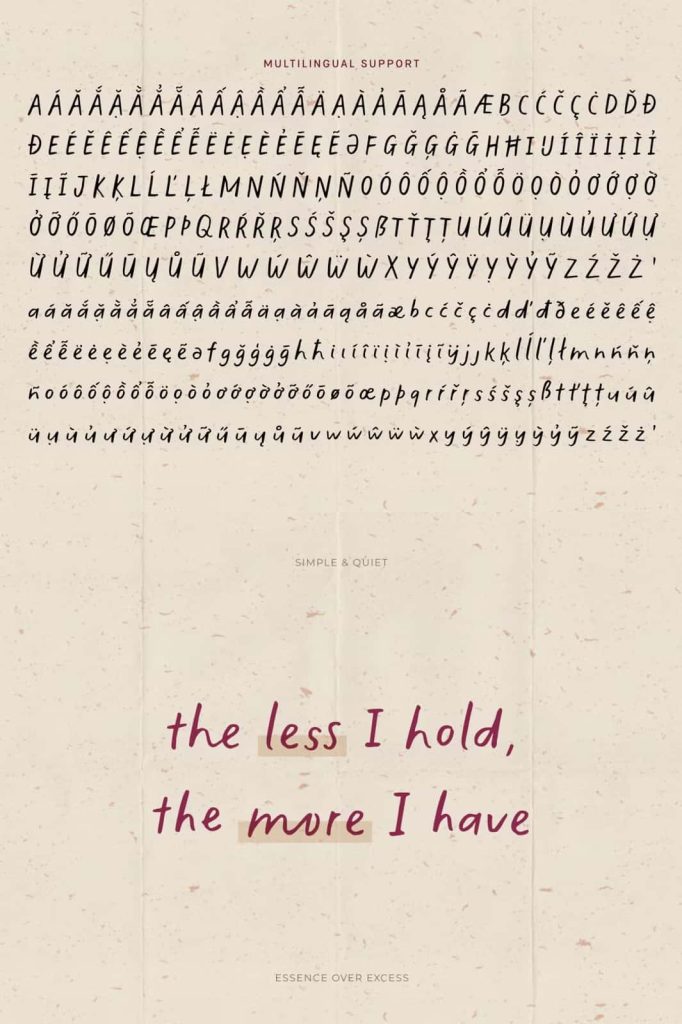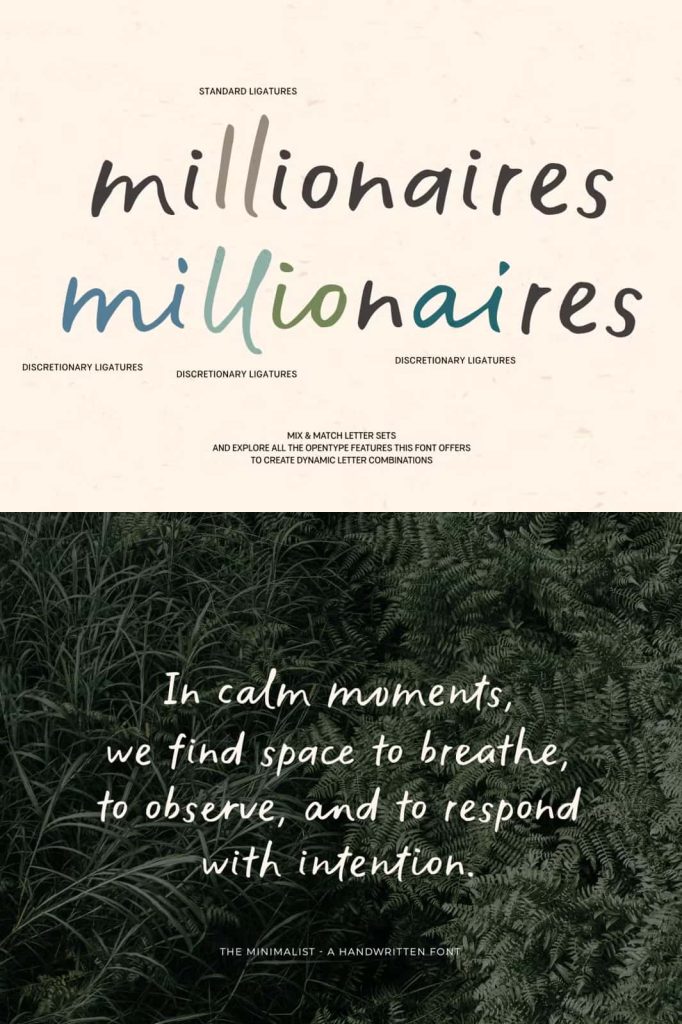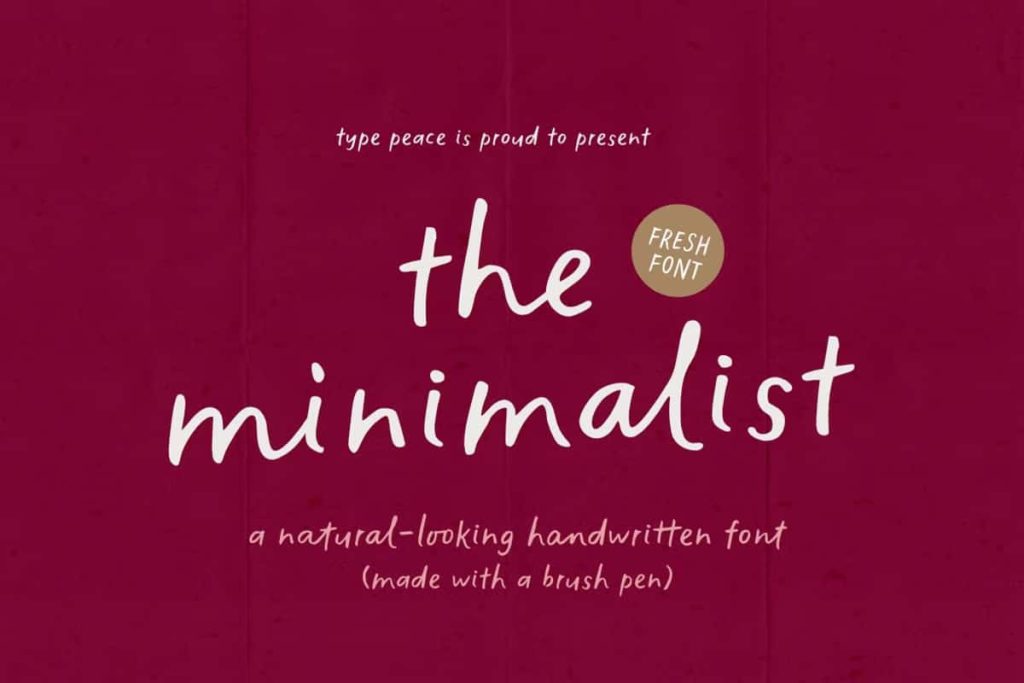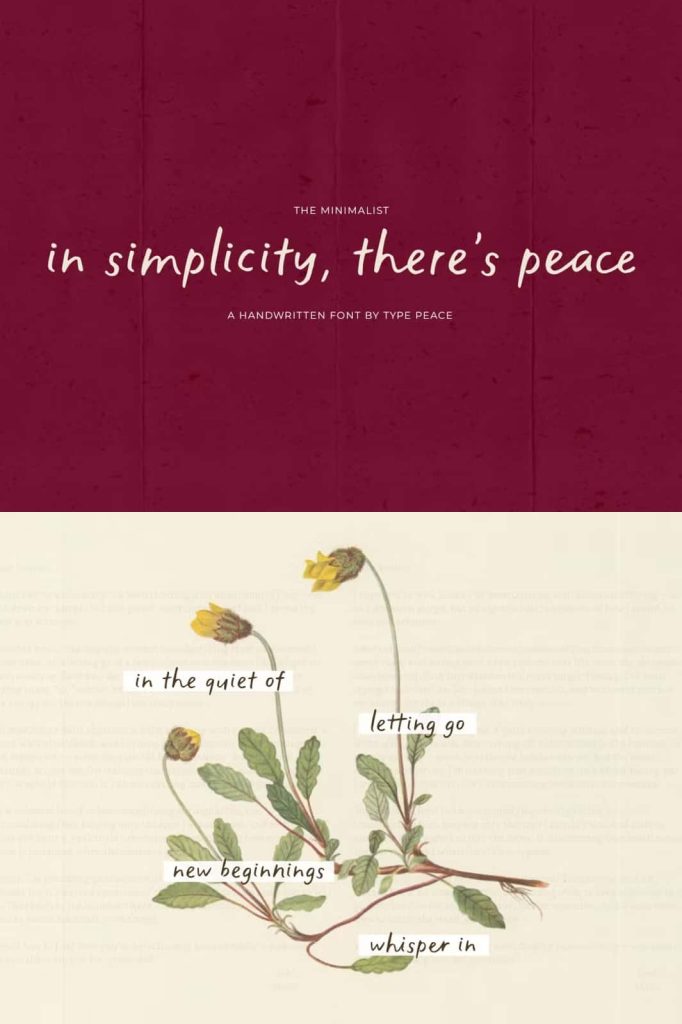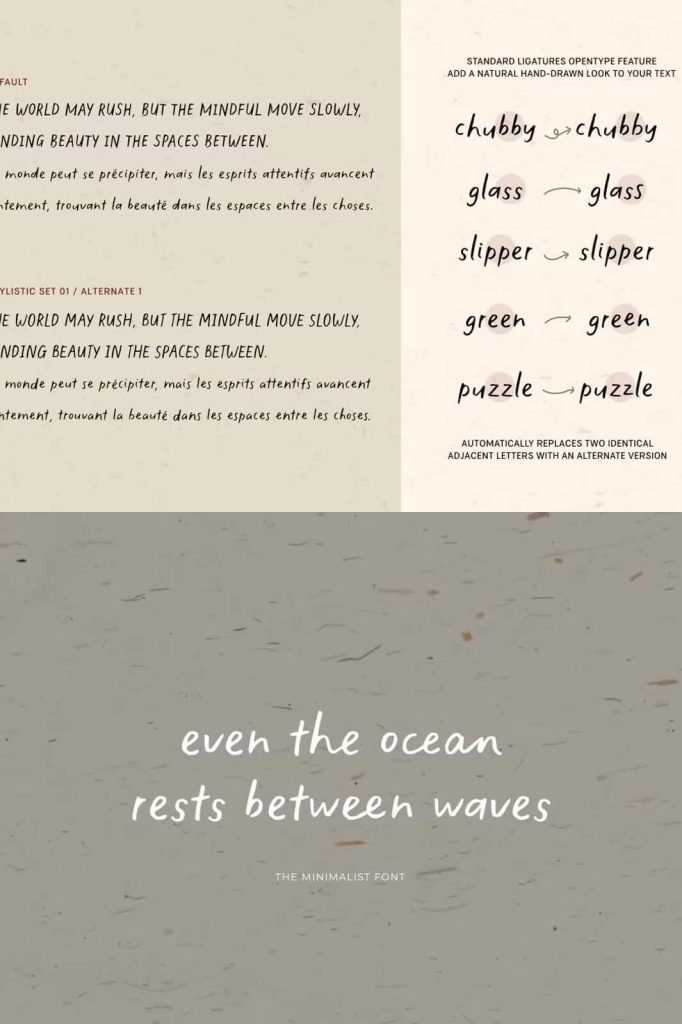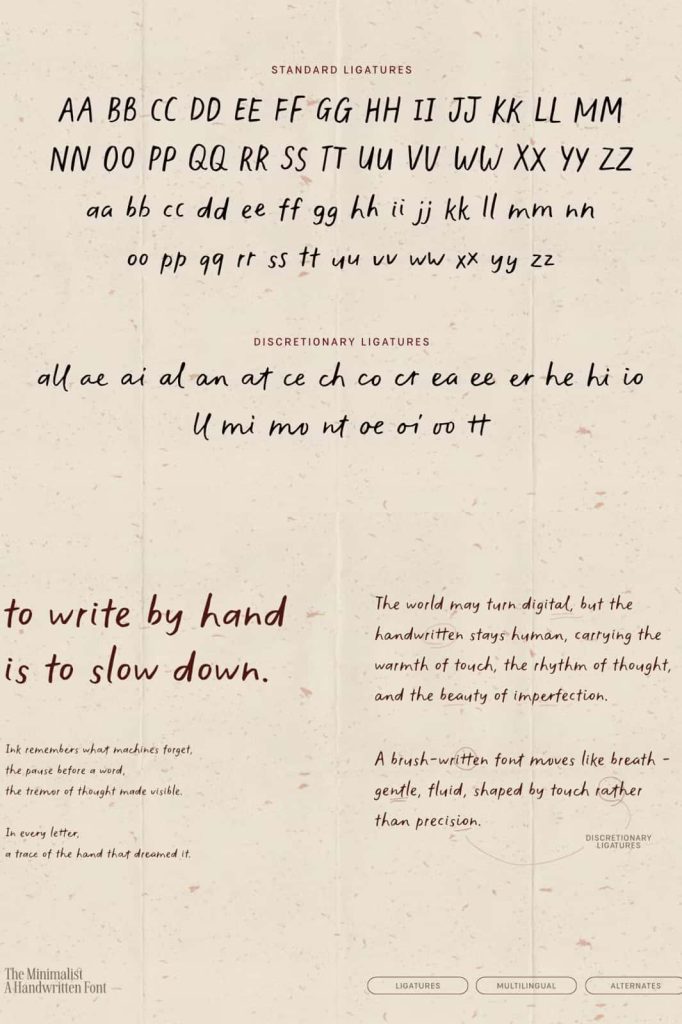
The Minimalist Handwritten Font – Natural Brush Script with Authentic Hand-Lettered Style
The Minimalist Handwritten Font is a beautifully crafted brush script typeface designed to capture the genuine beauty of natural handwriting. Created using real brush pen strokes, this font delivers an organic appearance that feels expressive, warm, and personal. Every character reflects the subtle imperfections and natural movement of handwritten lettering, making it an excellent choice for designers who want typography with authentic personality.
Unlike digital handwriting that often appears repetitive or mechanical, The Minimalist embraces the unique rhythm of traditional brush lettering. Its flowing strokes, textured details, and handcrafted appearance create typography that feels alive while remaining clean and highly readable. Whether you’re designing elegant branding, stylish packaging, social media graphics, or personalized stationery, this font brings creativity and sophistication to every project.
Authentic Brush Pen Lettering with Natural Character
The Minimalist was created from genuine brush pen strokes, preserving the subtle pressure changes and fluid movement found in real handwriting. Every letter carries the texture and rhythm of hand-drawn calligraphy, giving your typography an organic appearance that digital perfection simply cannot replicate.
The carefully balanced letterforms create a harmonious flow between characters, allowing words to feel naturally connected while maintaining excellent readability. This handcrafted quality helps every design communicate authenticity and artistic expression.
Organic Texture That Feels Warm and Personal
One of the defining characteristics of The Minimalist is its natural brush texture. Instead of perfectly smooth outlines, the font retains subtle variations that recreate the appearance of ink applied directly with a brush pen. These details add depth and visual interest while preserving a clean overall presentation.
The result is typography that feels approachable, creative, and genuinely handcrafted. Whether used in branding or personal projects, the font creates an emotional connection by reflecting the beauty of real human handwriting.
Alternate Characters for Natural Letter Variation
To make every word appear even more authentic, The Minimalist includes two variations of each letter. These alternate characters reduce repetitive patterns often found in handwritten fonts and introduce a more natural rhythm throughout your text.
When combined with its advanced OpenType features, the font automatically creates smoother and more varied lettering compositions. This flexibility helps designers produce typography that feels custom-made without requiring manual editing for every word.
Ideal Applications
- Luxury branding
- Logo design
- Business identity
- Product packaging
- Wedding invitations
- Greeting cards
- Website headers
- Editorial layouts
- Book covers
- Restaurant menus
- Creative presentations
- Photography branding
- Fashion marketing
- Handmade product labels
Advanced OpenType Features for Beautiful Typography
The Minimalist is equipped with rich OpenType features that enhance your typography with professional-quality letter combinations. These intelligent features allow characters to connect naturally while offering alternate forms that create a more realistic handwritten appearance.
Instead of repeating identical letter shapes, your text gains subtle variation that mirrors genuine handwriting. This makes headlines, logos, invitations, and promotional materials feel more dynamic and visually engaging.
Multilingual Support for Global Creativity
The Minimalist includes multilingual support, allowing designers to create projects for a broader international audience. Whether you’re developing branding for global businesses or producing multilingual publications, the font maintains its elegant handwritten appearance across supported languages.
This versatility makes it an excellent choice for creative professionals working on international branding, packaging, marketing campaigns, and editorial projects.
Perfect for Branding and Creative Projects
Businesses seeking a warm, approachable, and artistic identity will appreciate the versatility of The Minimalist. It performs exceptionally well for boutique brands, lifestyle companies, beauty products, cafés, photography studios, creative agencies, handmade businesses, florists, and wedding professionals.
The font also complements minimalist layouts, natural color palettes, premium photography, and elegant packaging designs, making it suitable for both modern and timeless visual identities.
Features
- Authentic handwritten brush script
- Created from real brush pen strokes
- Natural organic texture
- Two alternate versions of every letter
- Advanced OpenType features
If you’re searching for a handwritten brush script that combines artistic expression with professional versatility, The Minimalist Handwritten Font is an outstanding choice. Featuring authentic brush pen strokes, organic textures, alternate letterforms, advanced OpenType features, and multilingual support, this typeface helps designers create memorable branding, beautiful invitations, stylish packaging, editorial layouts, and engaging social media graphics. The Minimalist adds warmth, personality, and handcrafted elegance to every creative project while maintaining the readability and flexibility required for modern design.